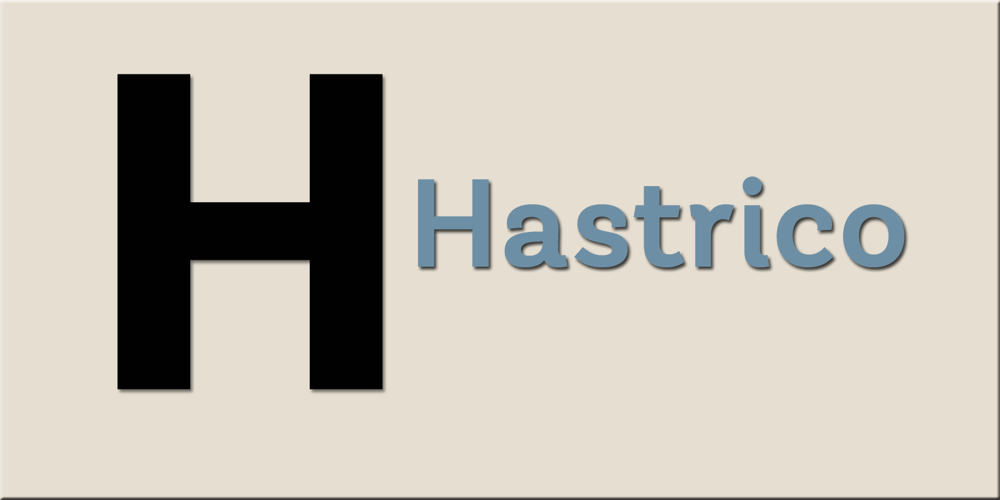
Hastrico DT Font Family was designed by Malcolm Wooden and published by DTP Types. Hastrico DT contains 14 styles and family package options. Sans serif grotesque with a rounded feel that makes it suitable for text or display.